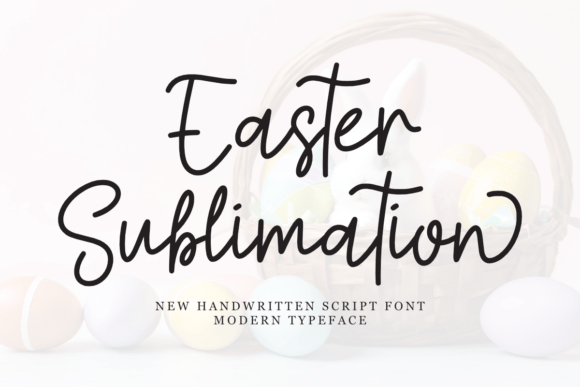
Easter Sublimation Font: Elevate Your Designs with Elegance and Warmth
Are you looking for a font that can add a touch of sophistication and charm to your designs? Look no further than the Easter Sublimation Font. This modern handwritten script font is perfect for creating beautiful and elegant designs for various projects, including wedding invitations, nursery decor, greeting cards, branding, wall art, tumblers, stickers, Cricut crafts, and more.
What is Easter Sublimation Font?
Easter Sublimation is a modern handwritten script font that features smooth lines and flowing curves, giving it a warm and inviting feel. The font is designed with clarity and charm in mind, making it perfect for both print and digital projects. Its elegant and sophisticated look makes it ideal for designs that require a touch of luxury and refinement.
Key Features of Easter Sublimation Font
- Modern Handwritten Script Font: Easter Sublimation Font has a modern and stylish handwritten script look that adds a touch of elegance to any design.
- Smooth Lines and Flowing Curves: The font features smooth lines and flowing curves, giving it a warm and inviting feel.
- Perfect for Various Projects: Easter Sublimation Font is suitable for a wide range of projects, including wedding invitations, nursery decor, greeting cards, branding, wall art, tumblers, stickers, Cricut crafts, and more.
- Clear and Charismatic Design: The font is designed with clarity and charm in mind, making it perfect for both print and digital projects.
Uses of Easter Sublimation Font
Easter Sublimation Font is a versatile font that can be used for various design projects. Here are some of the most popular uses of this font:
- Wedding Invitations: The font’s elegant and sophisticated look makes it perfect for wedding invitations, adding a touch of luxury and refinement to your designs.
- Nursery Decor: Easter Sublimation Font is also suitable for nursery decor, creating a warm and inviting atmosphere for your little ones.
- Greeting Cards: The font’s smooth lines and flowing curves make it perfect for creating beautiful and elegant greeting cards for special occasions.
- Branding: Easter Sublimation Font can be used for branding purposes, adding a touch of sophistication and elegance to your brand’s identity.
- Wall Art: The font’s modern and stylish look makes it perfect for creating stunning wall art designs that can add a touch of elegance to any room.
- Tumblers and Stickers: Easter Sublimation Font can also be used for designing tumblers and stickers, creating personalized and unique gifts for friends and family.
- Cricut Crafts: The font is compatible with Cricut machines, making it perfect for creating beautiful and intricate designs for your Cricut projects.
Benefits of Using Easter Sublimation Font
Using Easter Sublimation Font can bring numerous benefits to your designs. Here are some of the advantages of using this font:
- Elegant and Sophisticated Look: The font’s modern and stylish look adds a touch of elegance and sophistication to any design.
- Versatility: Easter Sublimation Font is suitable for a wide range of projects, making it a versatile font that can be used for various design purposes.
- Easy to Read: The font’s clear and charismatic design makes it easy to read, even at small sizes.
- Professional Touch: Easter Sublimation Font adds a professional touch to your designs, making them perfect for commercial and personal projects.
Tips for Using Easter Sublimation Font
Here are some tips for using Easter Sublimation Font effectively:
- Use it for Headings and Titles: The font’s elegant and sophisticated look makes it perfect for headings and titles.
- Pair it with Other Fonts: Easter Sublimation Font can be paired with other fonts to create a unique and stylish look.
- Experiment with Colors: The font’s smooth lines and flowing curves make it perfect for experimenting with different colors and textures.
- Use it for Digital and Print Projects: Easter Sublimation Font is suitable for both digital and print projects, making it a versatile font that can be used for various design purposes.
Easter Sublimation Font is a modern handwritten script font that brings a touch of elegance and warmth to any design. With its smooth lines and flowing curves, this font is perfect for creating beautiful and elegant designs for various projects. Whether you’re crafting with Cricut, designing for KDP, or making personalized gifts, Easter Sublimation Font adds a sweet and professional touch to your designs.